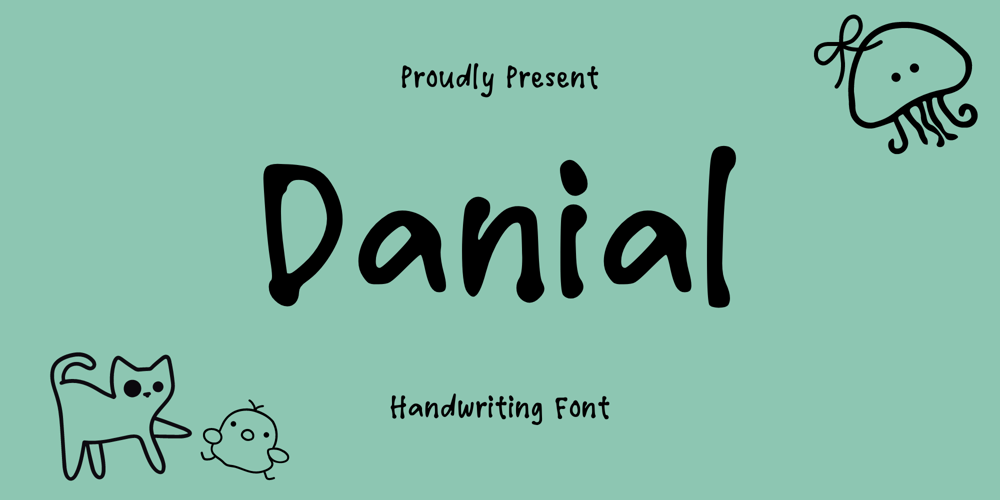
Danial Font Family was designed by published by Sidkia Fonts. Danial contains 1 styles and family package options. Danial font is a simple regular handwriting font that is perfect for social media or crafty projects. Use if for branding, crafts for decor, invitations, and more!